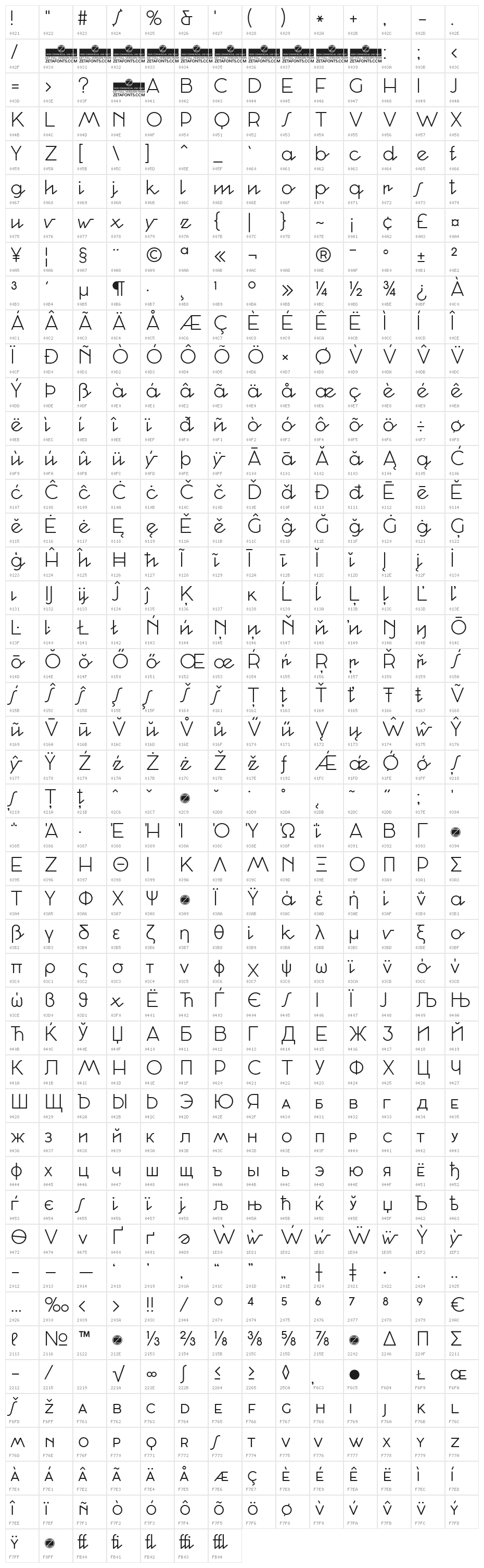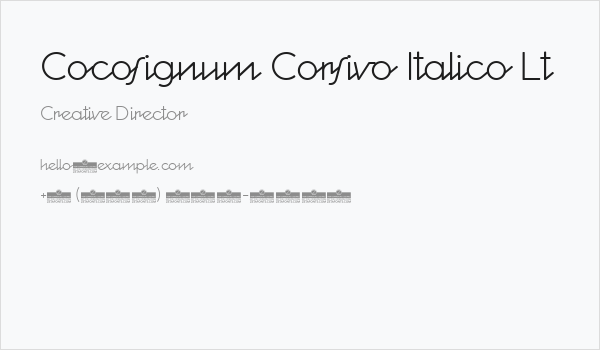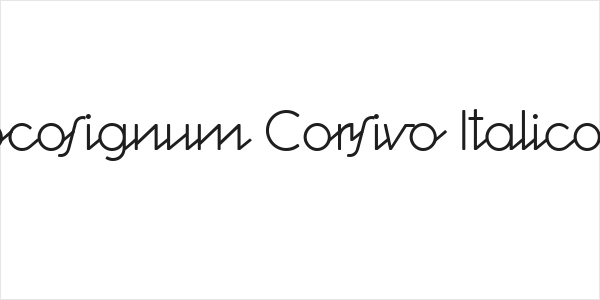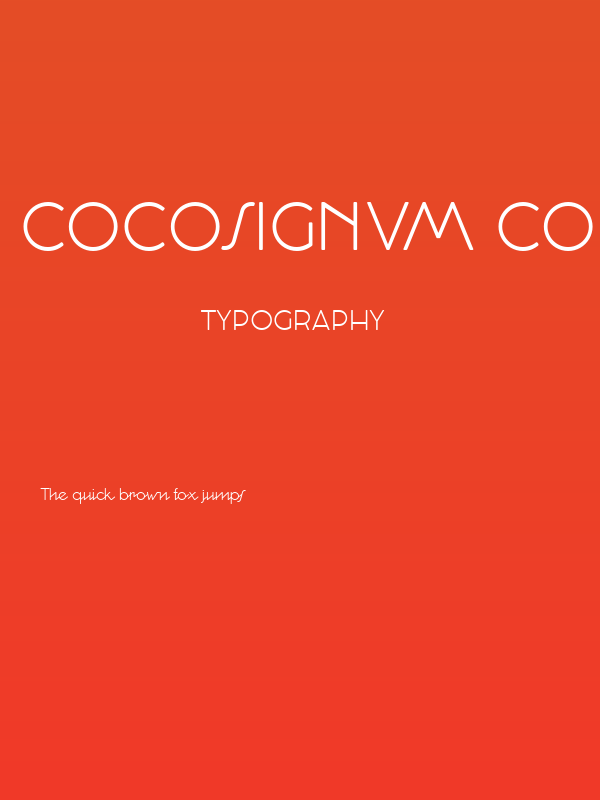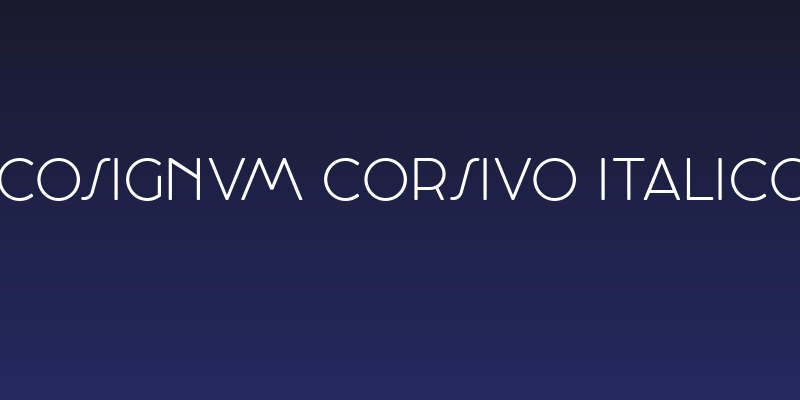
Cocosignum Corsivo Italico Lt Font
Cocosignum Corsivo Italico Lt Description
This font features a sleek, modern design with a clean and minimalistic aesthetic. The uppercase letters are characterized by straight lines and sharp angles, creating a geometric feel. The lowercase letters maintain a similar style but introduce subtle curves, adding a touch of elegance. The font is monoline, with consistent stroke thickness throughout, contributing to its contemporary look. The special characters and numbers follow the same design principles, ensuring uniformity across all elements. This font is highly legible, making it suitable for various applications.